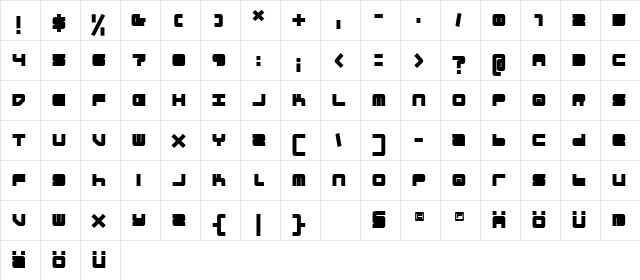
blockit Bold Font Preview
blockit Bold
Design Context for blockit Typeface
blockit is a composed and adaptable typeface that performs quietly and consistently across a wide range of design contexts. The heavy weight commands attention and anchors typographic hierarchies.